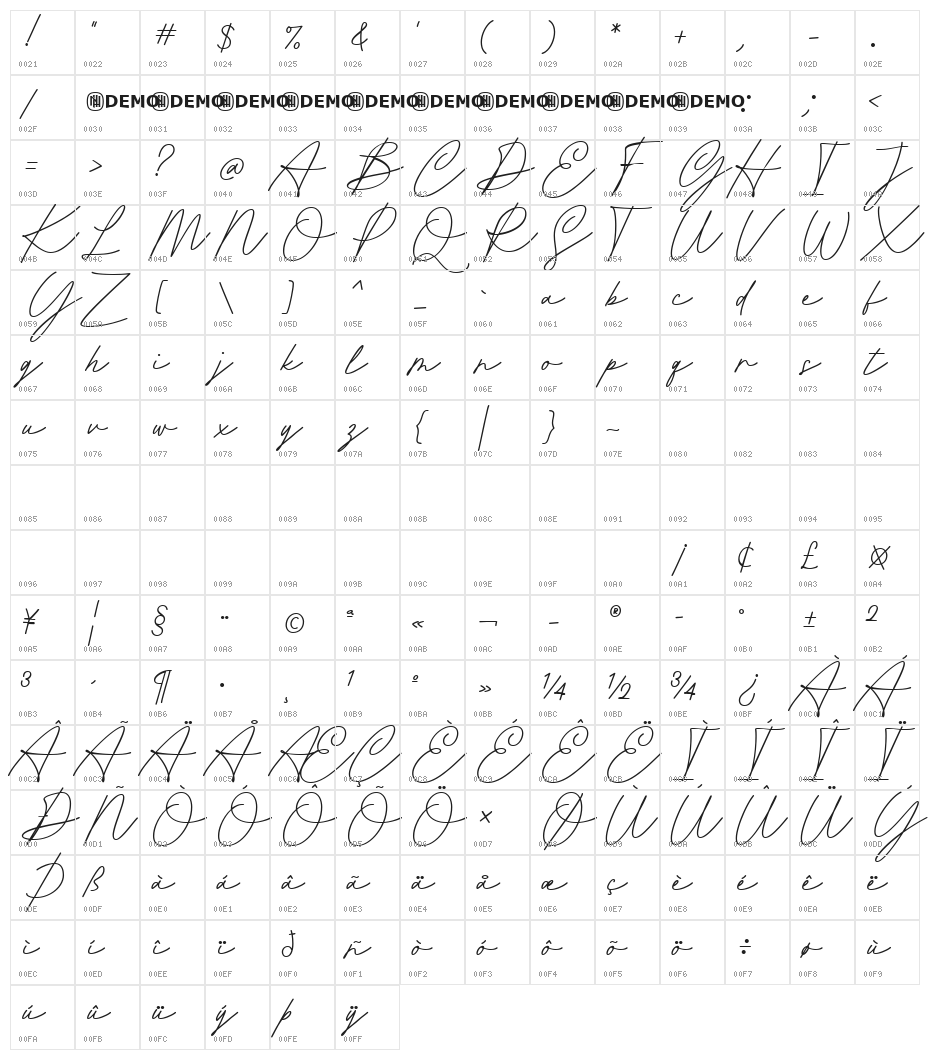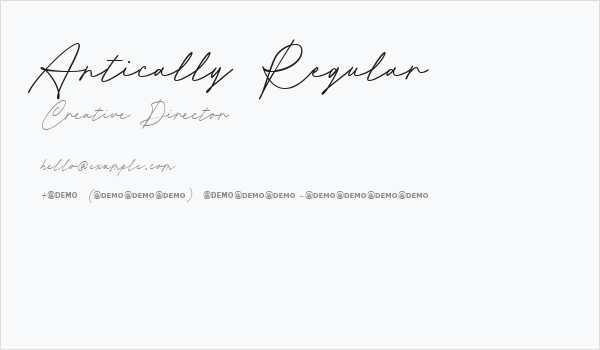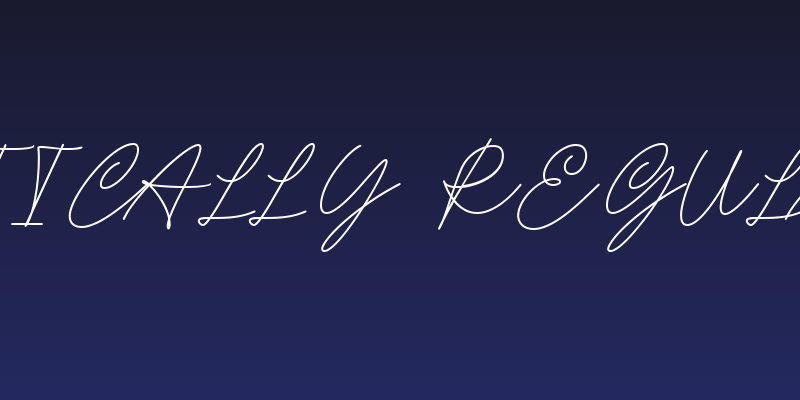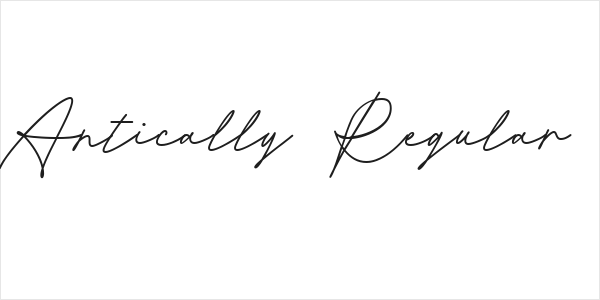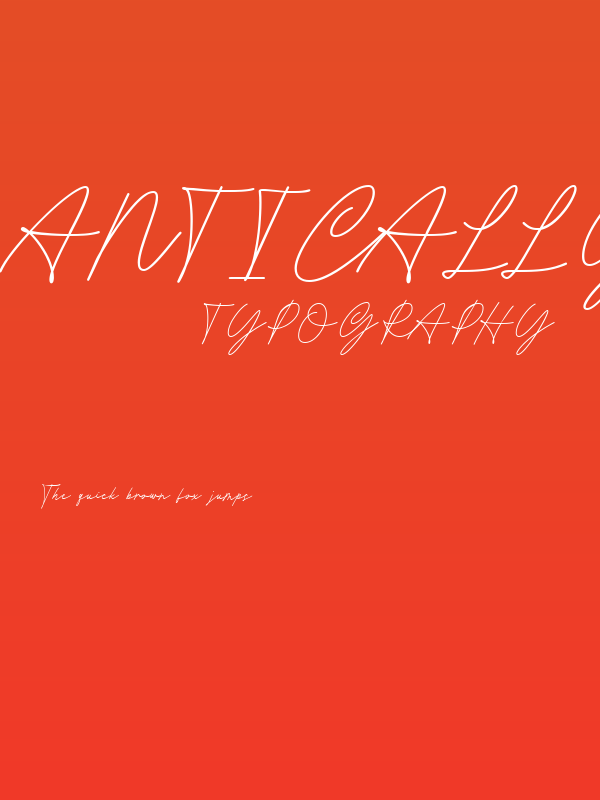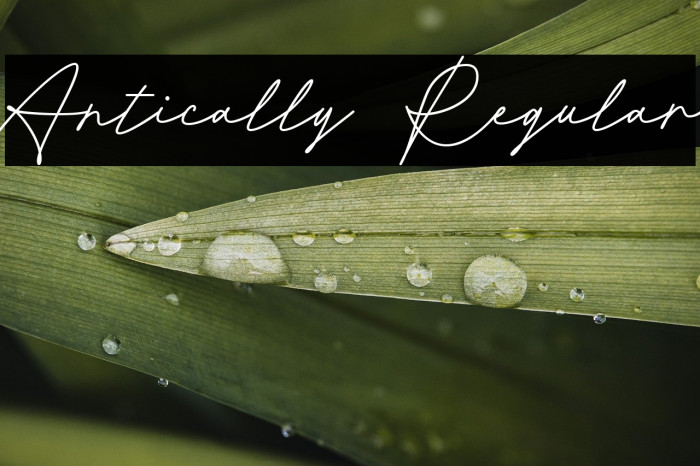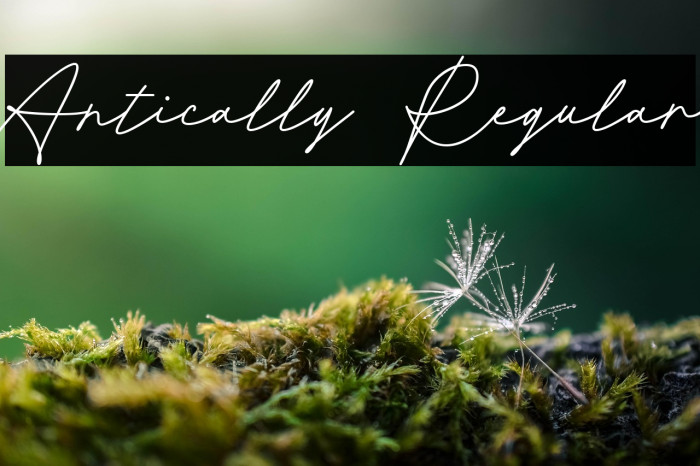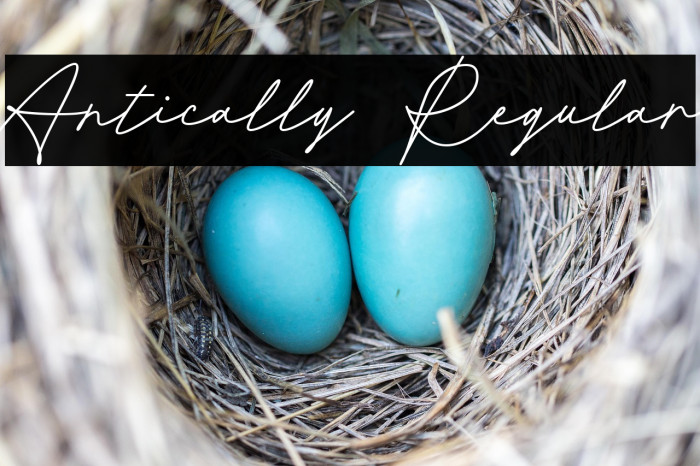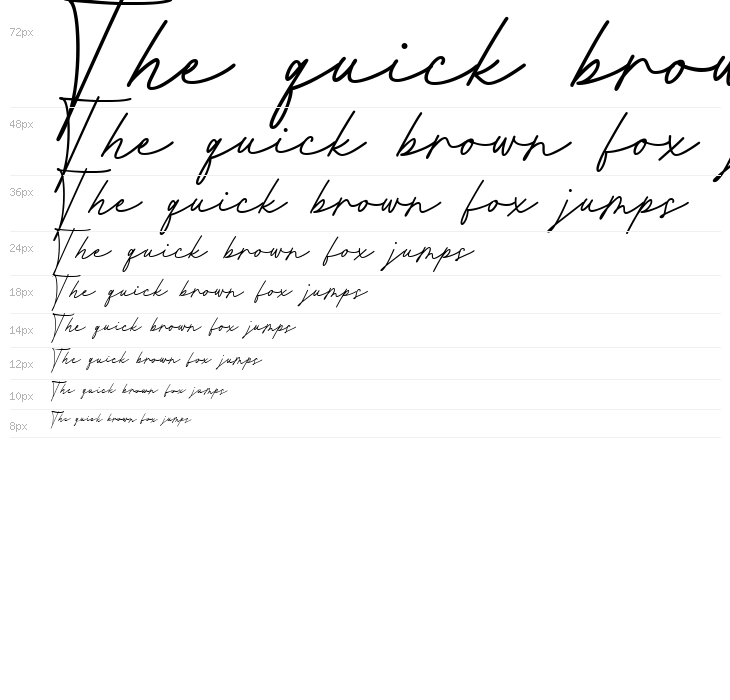
Antically Regular Font
Antically Regular Description
This font features a delicate and elegant script style, characterized by its fluid and continuous strokes. The uppercase letters are tall and slender, while the lowercase letters maintain a consistent flow, enhancing readability. The font's design is reminiscent of traditional handwriting, with a modern twist that adds a touch of sophistication. The special characters are seamlessly integrated, maintaining the overall aesthetic. This font is versatile, suitable for a variety of design projects that require a personal and artistic touch.
| Proposed Projects | Ideal for wedding invitations, greeting cards, branding, and elegant logos. |